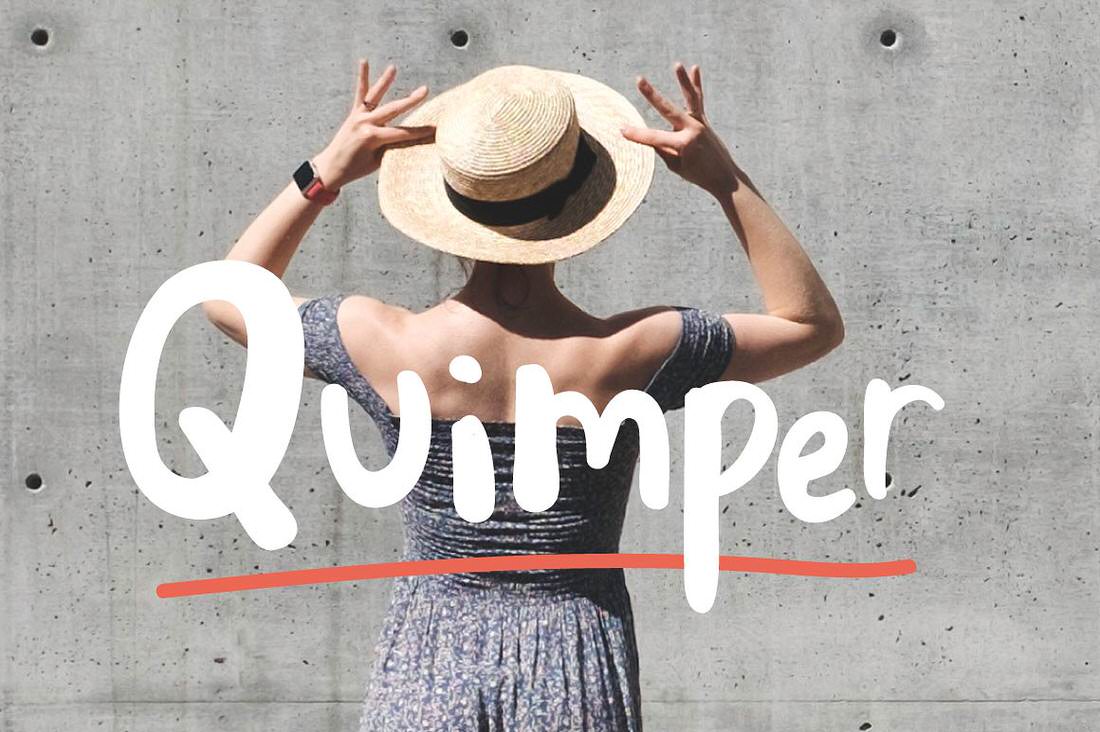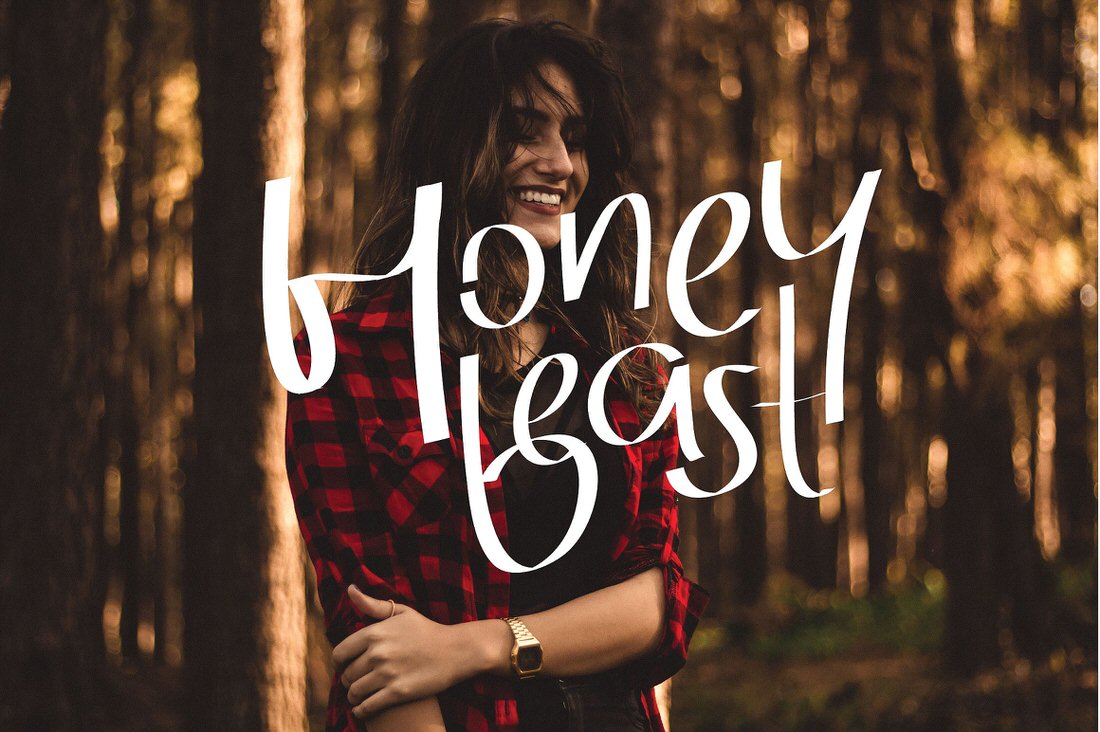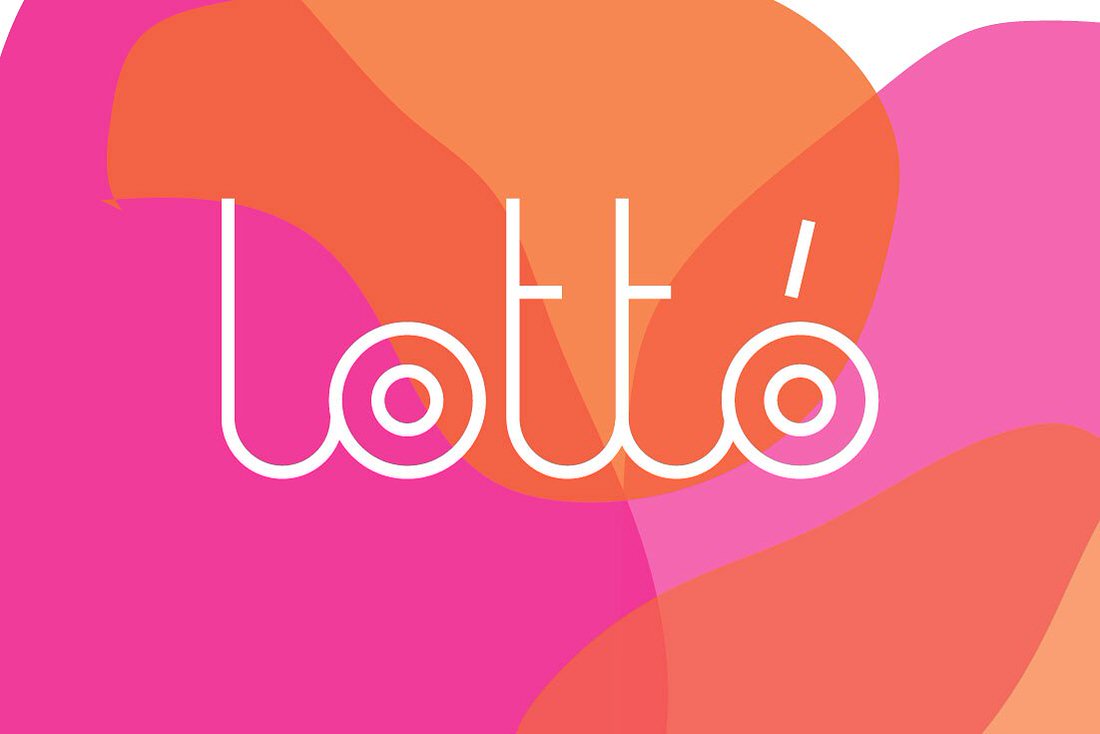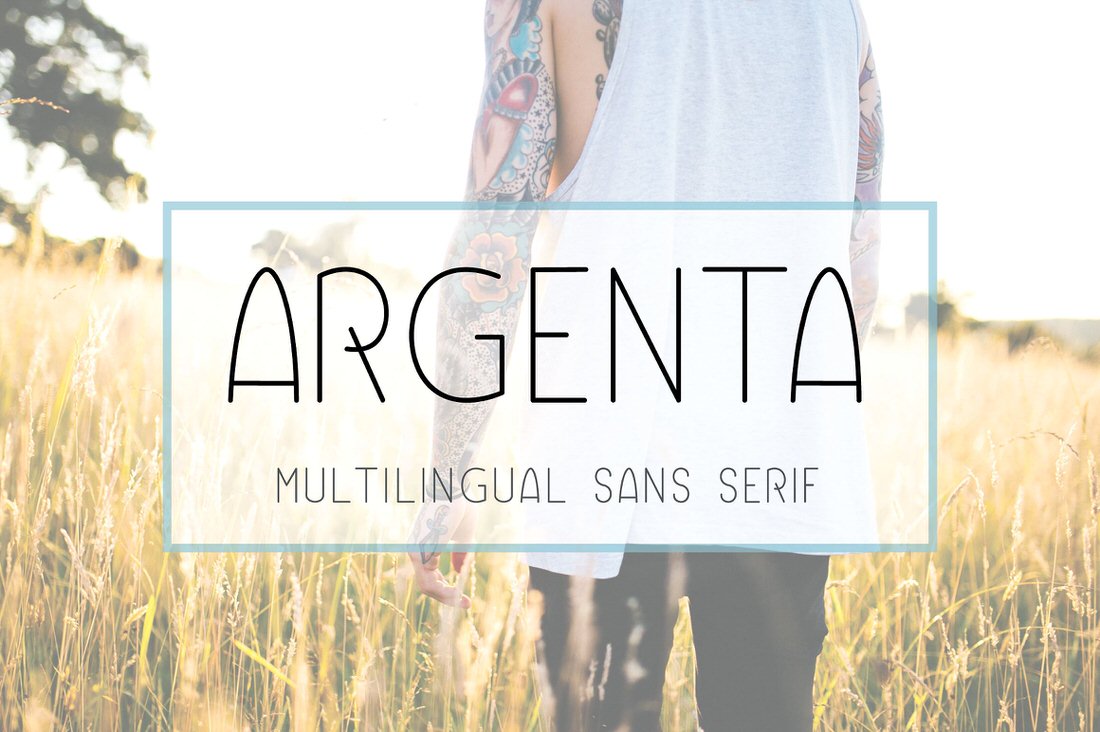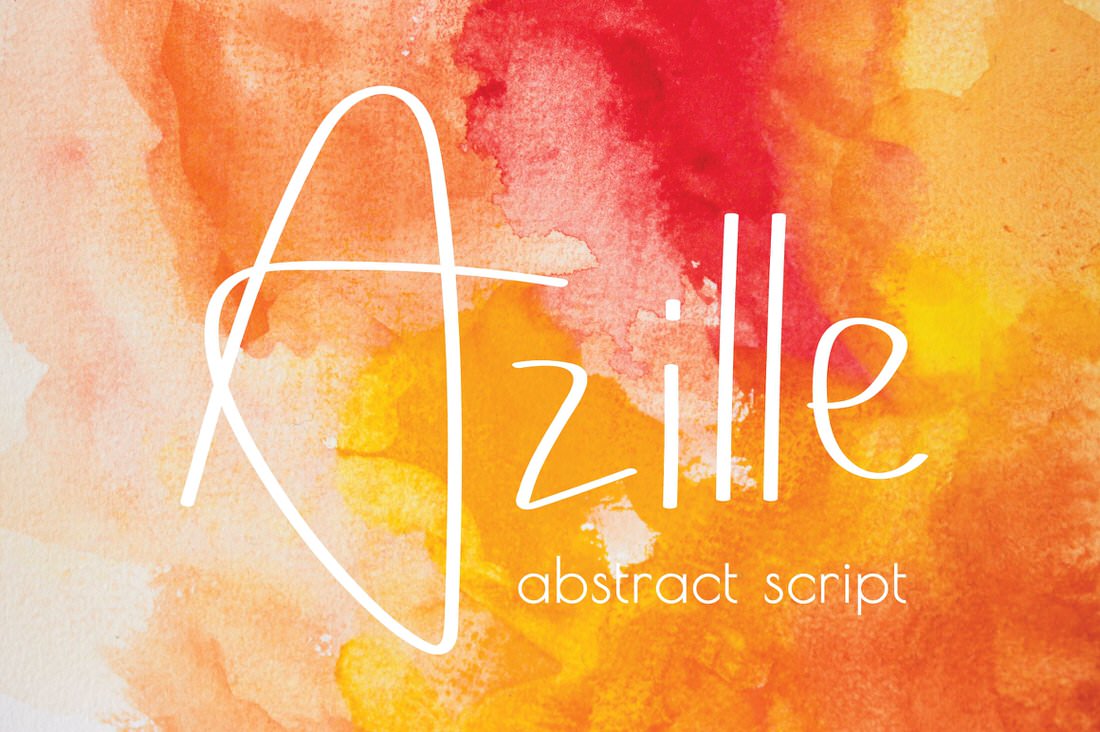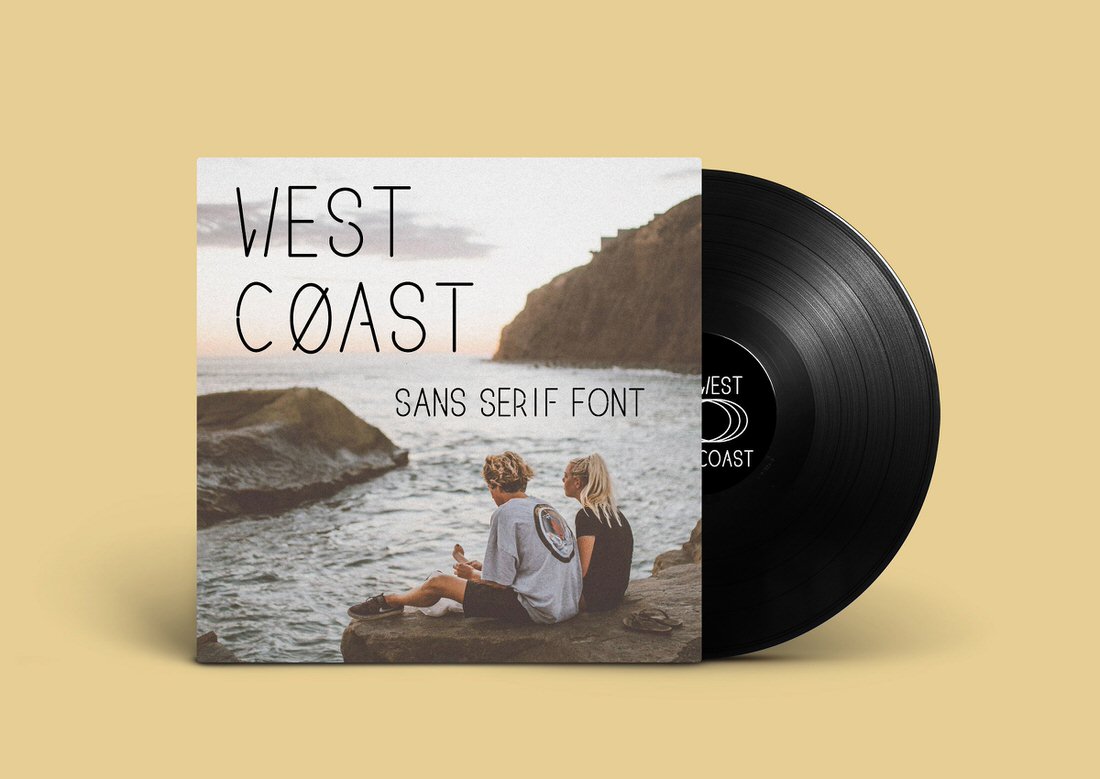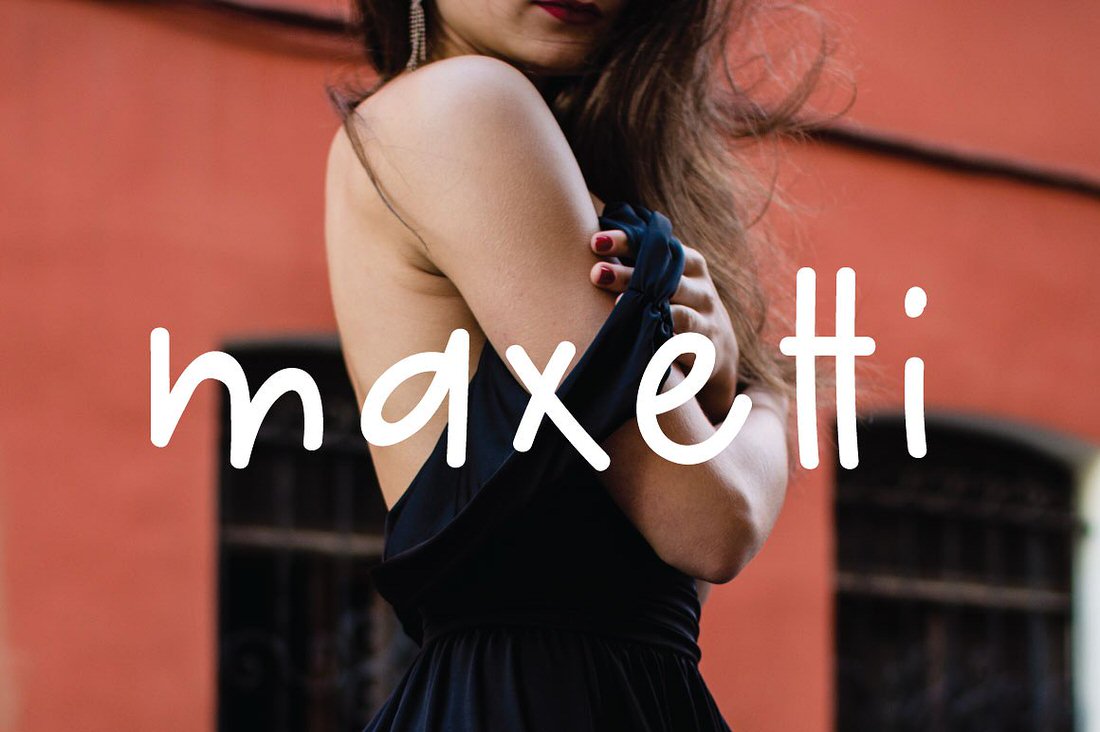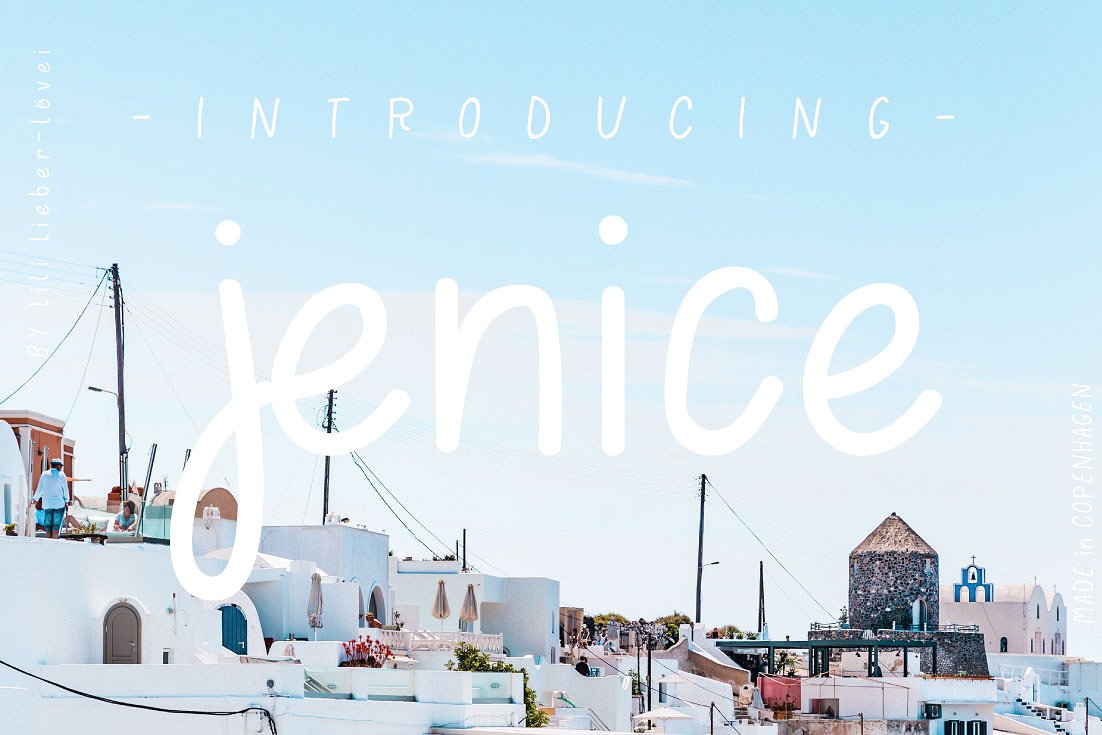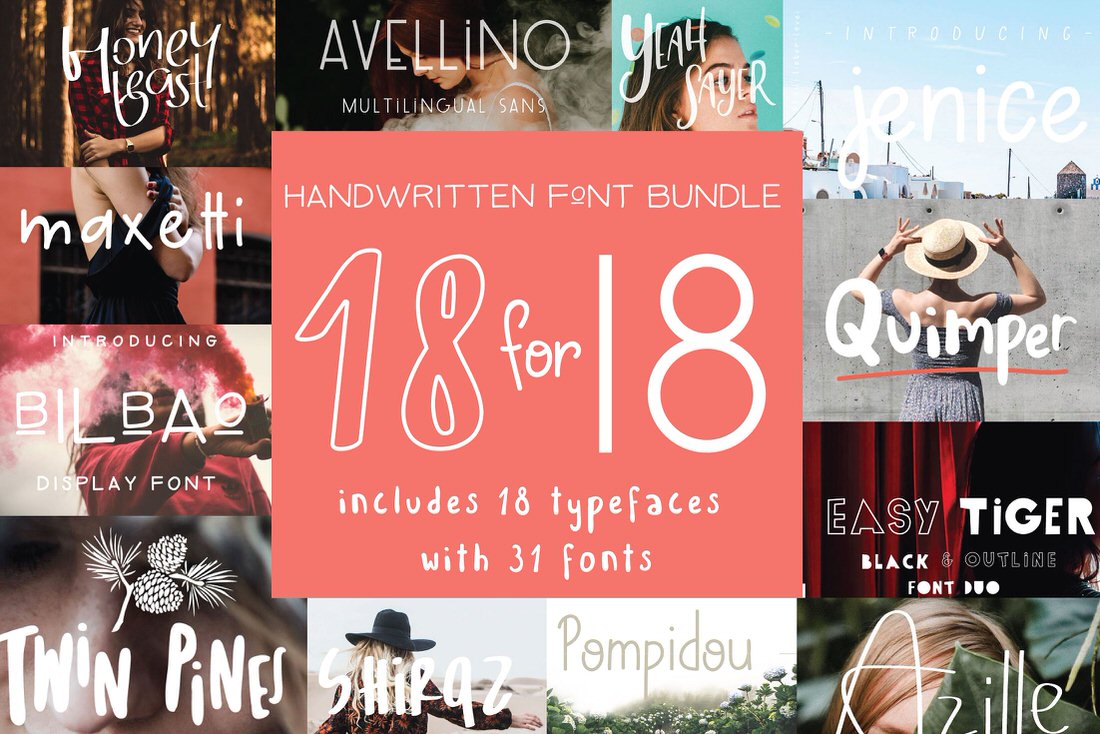
Handcrafted Fonts
To celebrate one year since Lili Lieber-Lovei is on the market, they release this amazing handcrafted font bundle!
This beautiful collection contains 18 typeface families with a total of 31 fonts! it’s a dream bundle for bloggers, YouTubers and the other content creators who want to enhance their content with absolutely unique fonts.